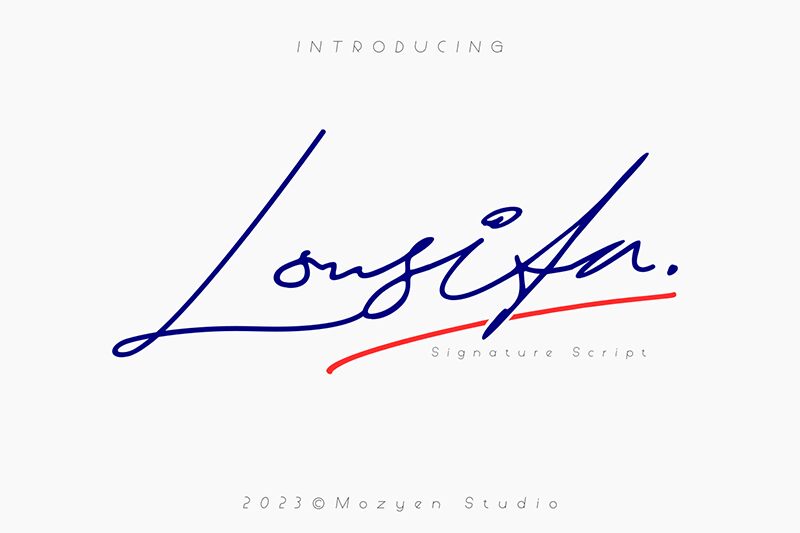
Lousita
Lousita font by Mozyen Studio is a light handwritten signature font with flowing lines that preserves elegance even in casual texts. The sophisticated appearance of the inscriptions is where the font truly shines, making it an ideal choice for high-end brands. This versatile creation functions as a standalone logotype or in longer body copy.
Lousita finds its use on clothing tag designs, fashion magazine covers, wedding invitations, planner covers, influencer names on Instagram posts/stories, wish card headings, letterhead designs and business cards. Enjoy using this free handwriting font however you see fit!